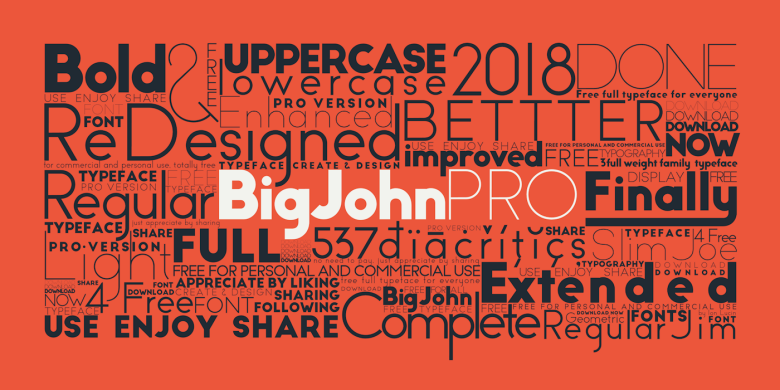
Big John PRO Typeface
Big John – offers exquisite and fascinating typography harmony for diverse designs! It is was designed and shares by Ionyc Type. Big John PRO, is the logical evolution of the Big John and Slim Joe font, that you already know well. Besides the bold Big John, and the light Slim Joe, there is a new medium weight, Regular Jim. In addition to the new medium weight, now all of them include lowercase letters also. And to top it all, now Big John PRO, includes over 500 diacritics characters, to be as useful as possible for everyone. All this results in a modern and geometric sans serif, and now complete, typeface.